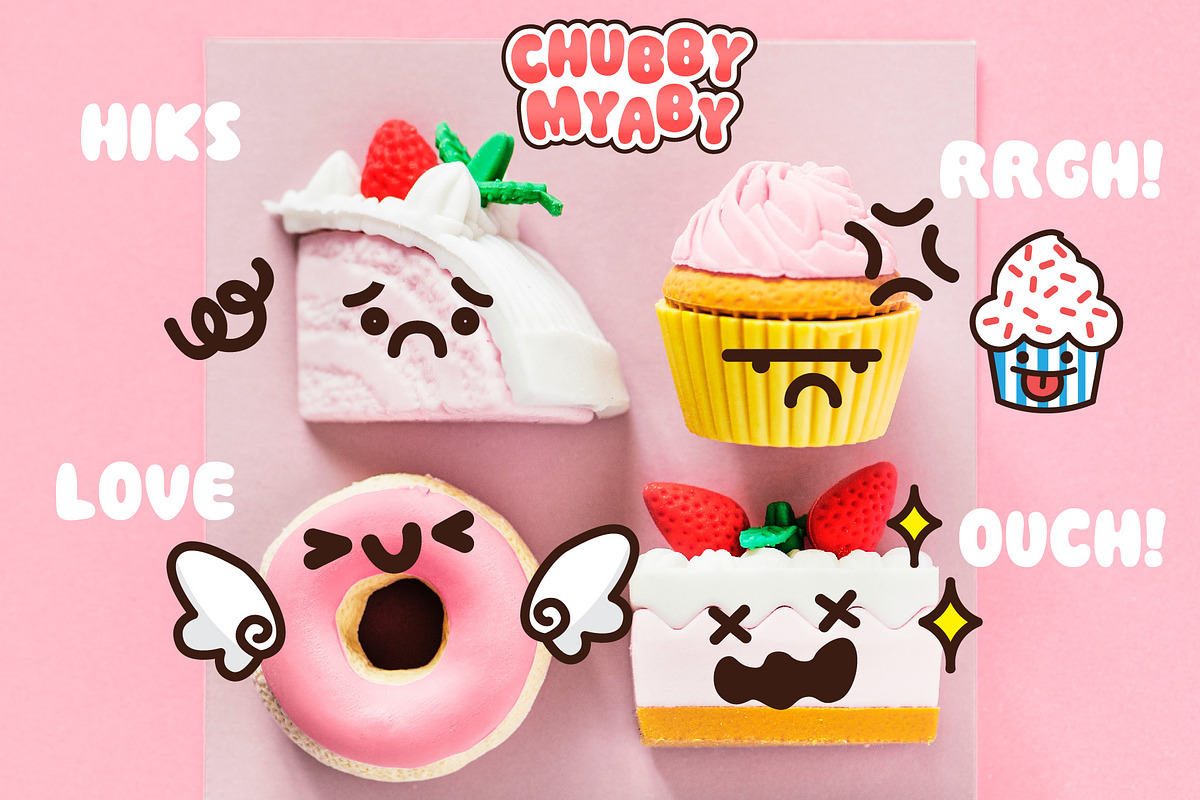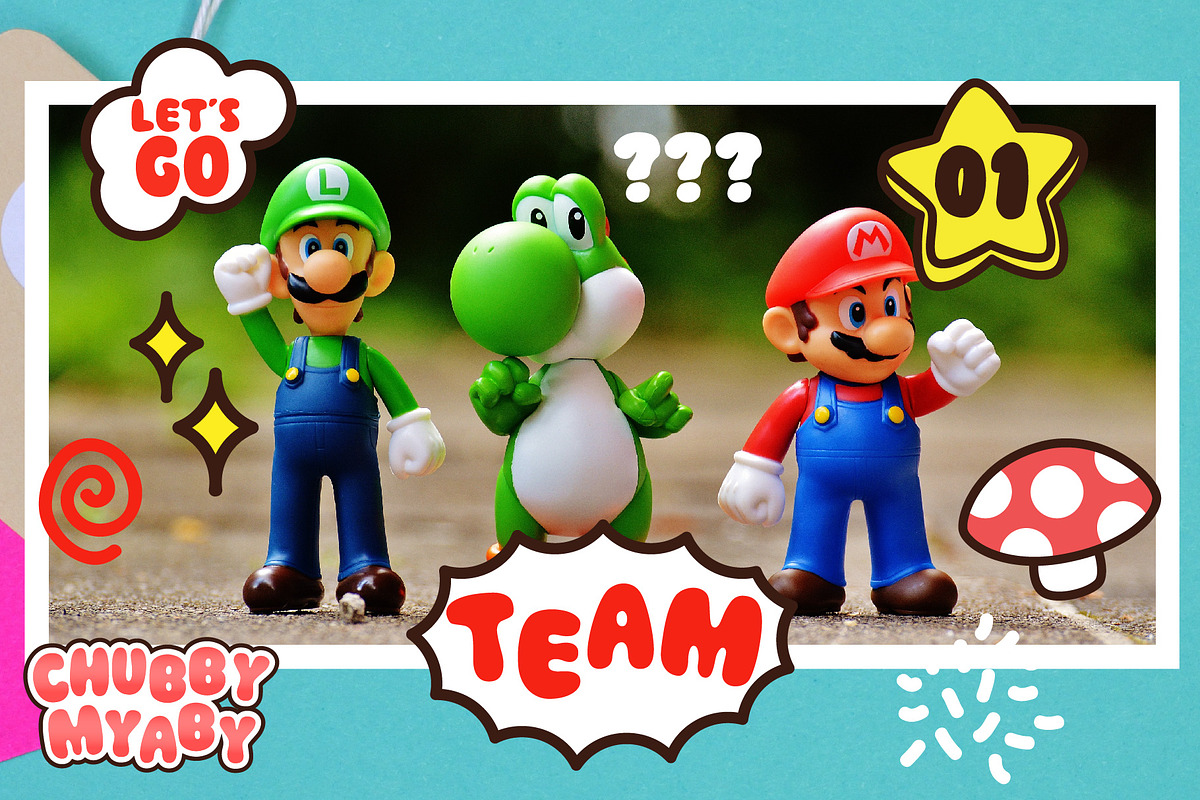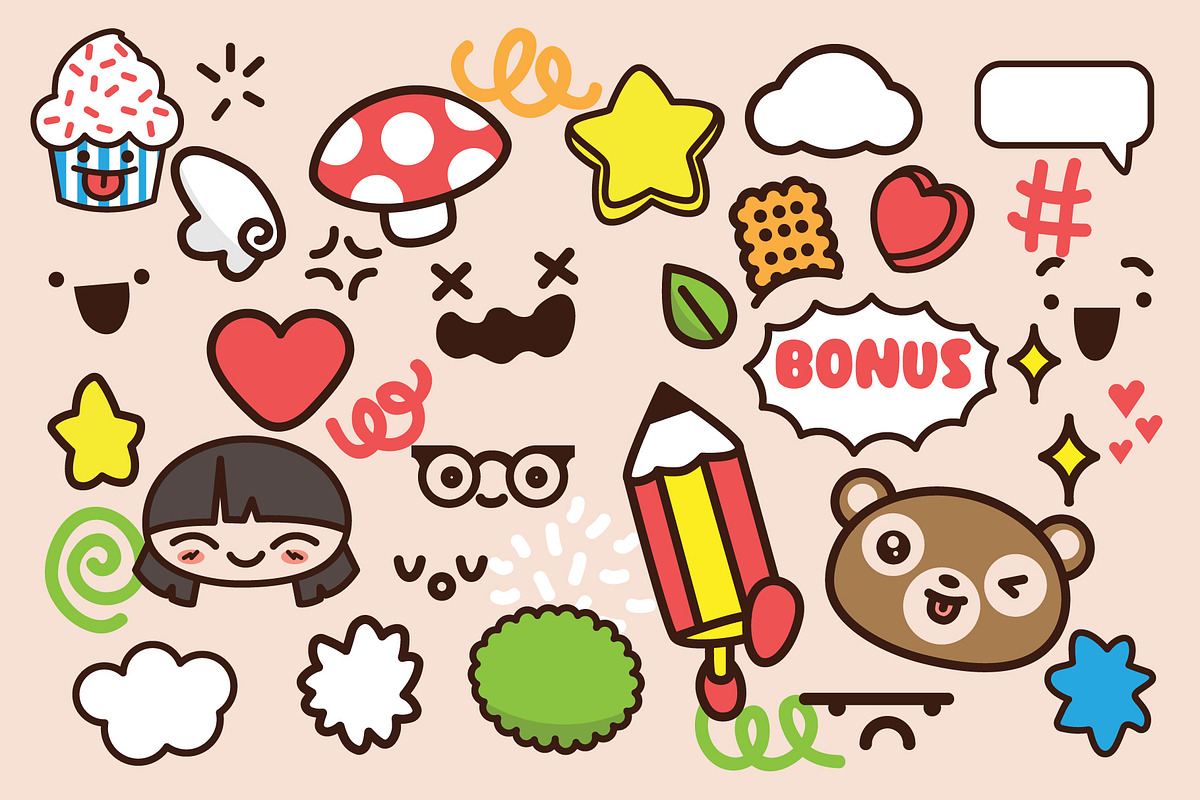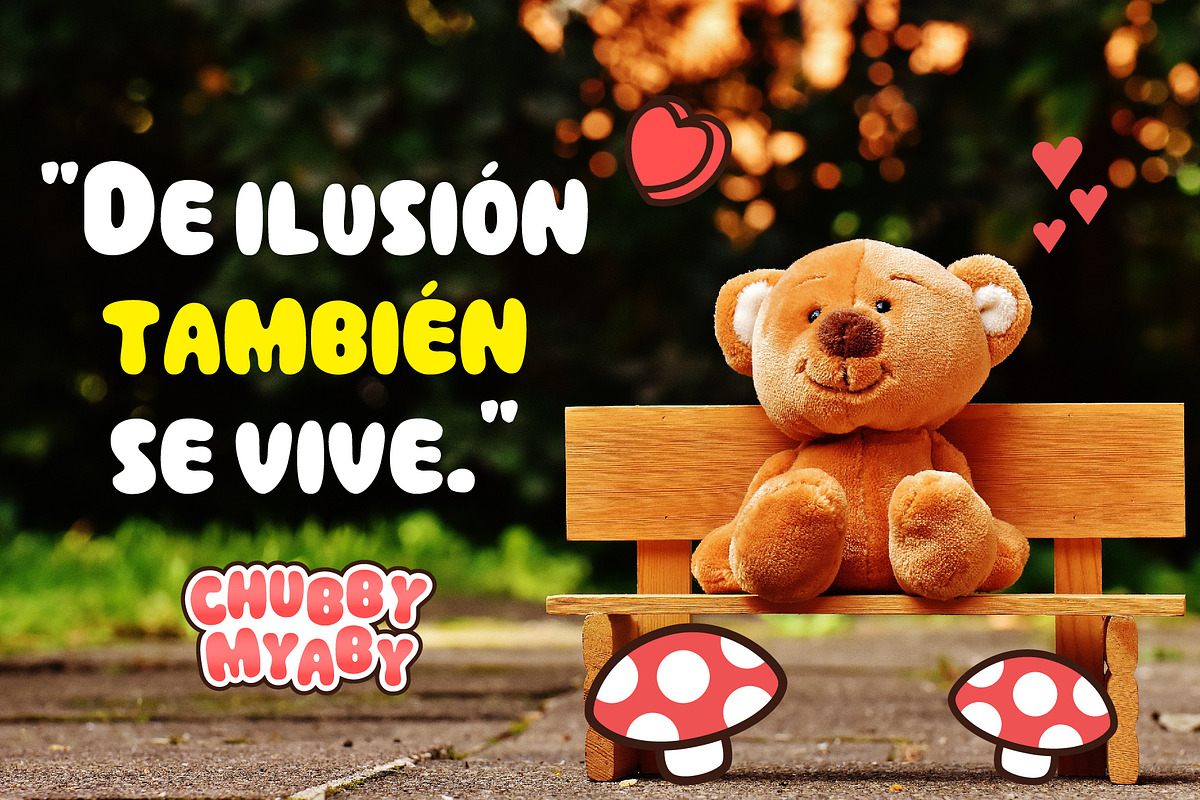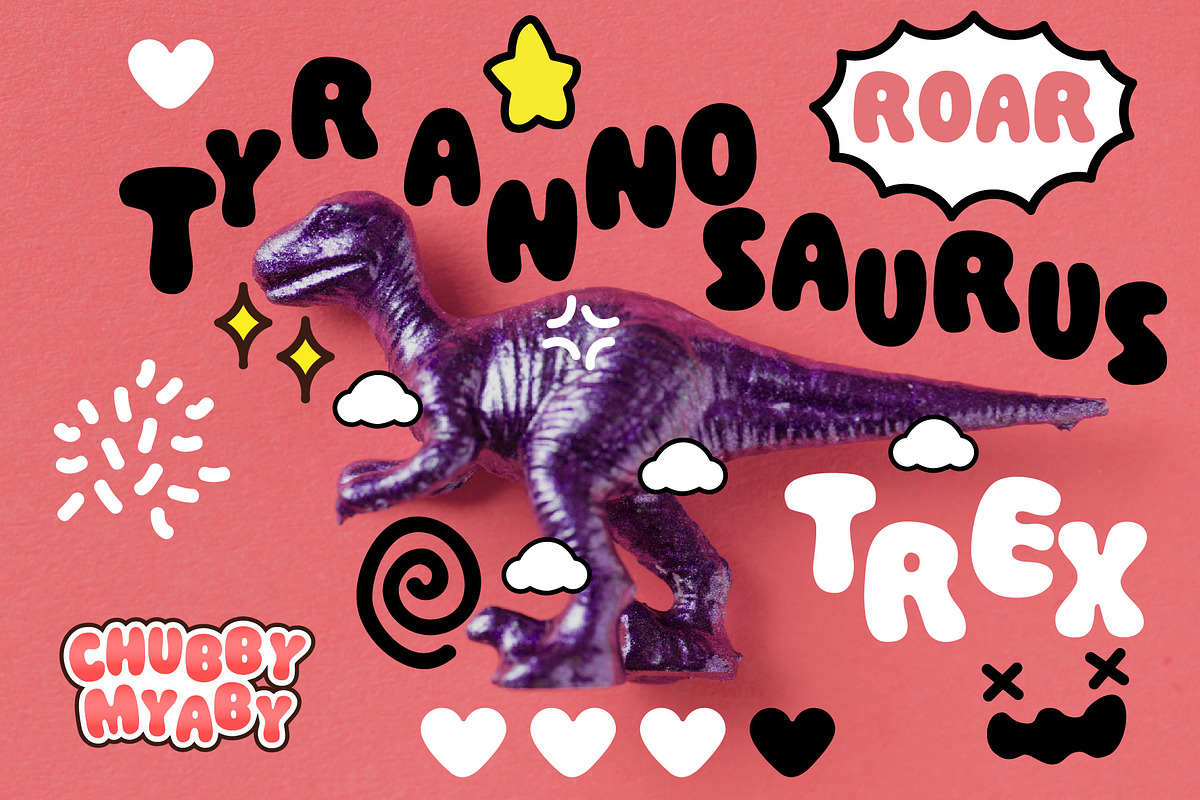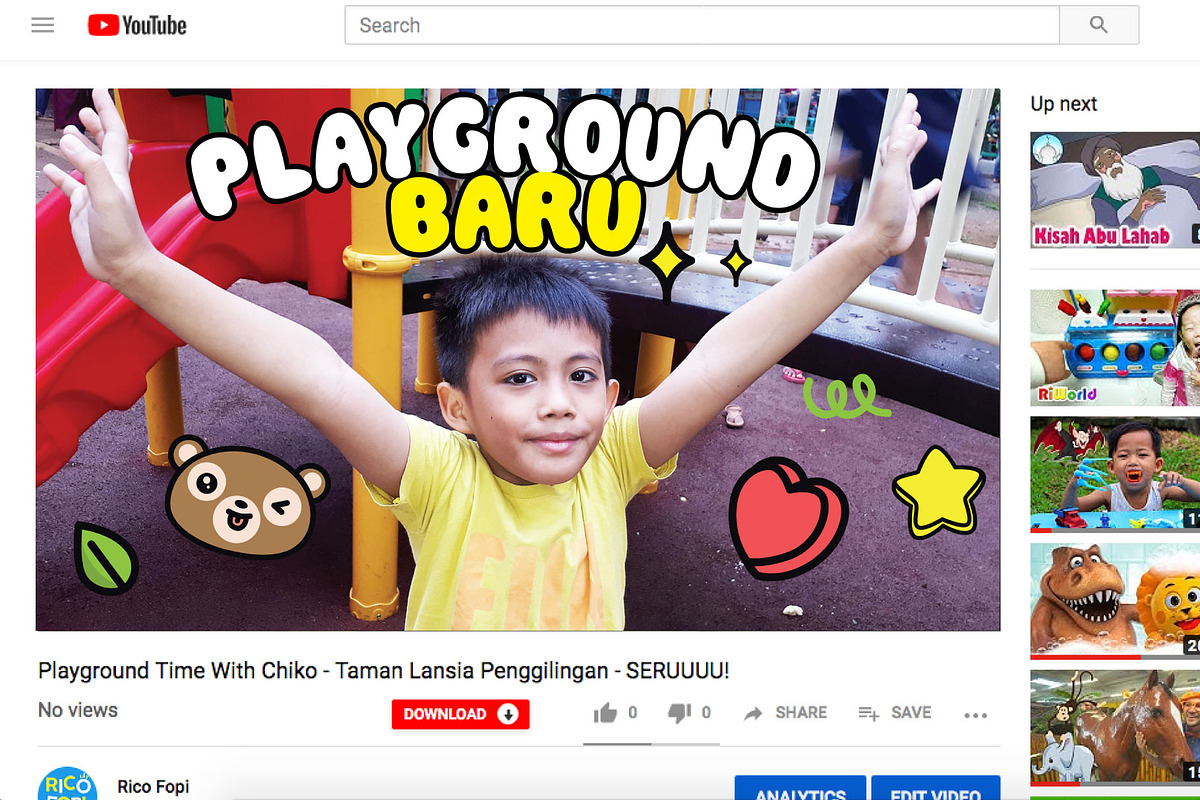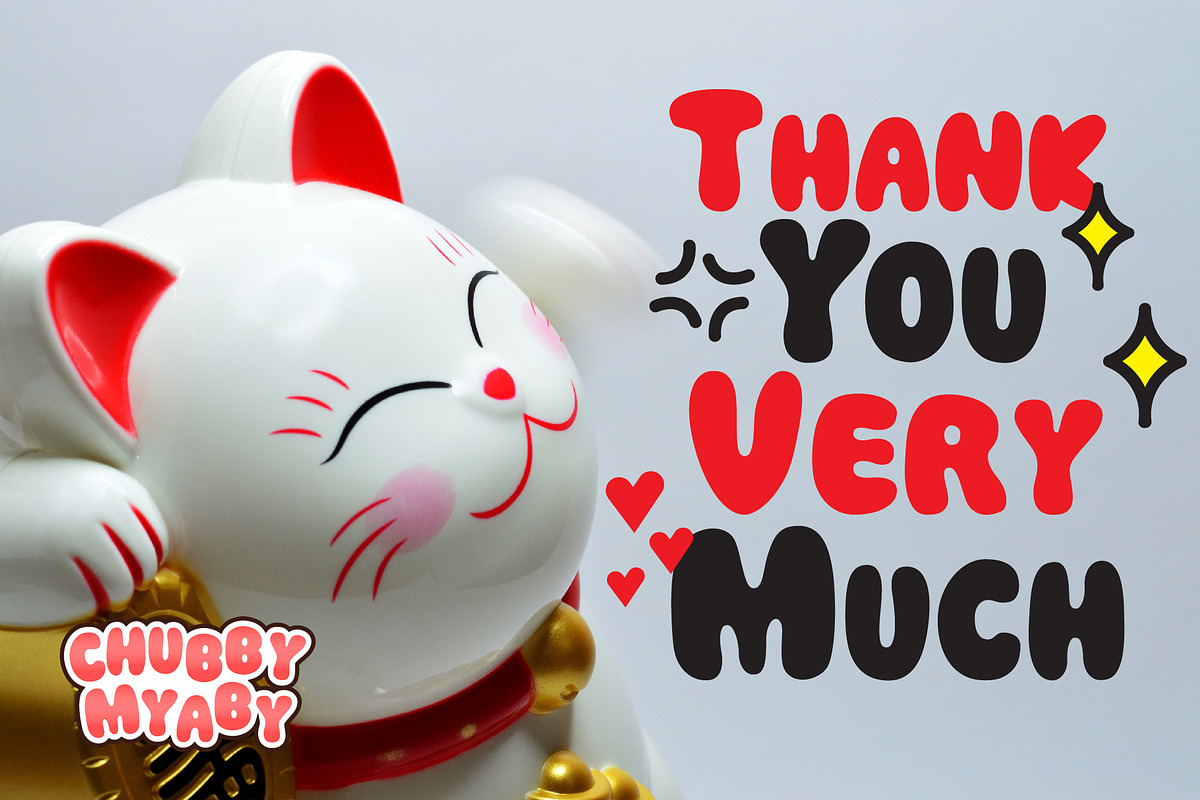
Chubby Myaby Font + Bonus
We all know that sometimes digital contents lack of emotions. Even though everyone loves to express freely, widely, HAPPILY, texts only (like what we can only do here) is not enough to show what we’re currently feeling or what we want others to feel! Don’t you think so?
That’s why we need stickers to cheer up the conversation, and that’s exactly why we created this CHUBBY MYABY Typeface. Perhaps you wanna put more kiddish side to your photography, or you want to create a stickers by combining cringeworthy cute characters, this will enable you to do that!
Bring more story to your creations, put lovely bearhere, or dizzy little girl there. We also have walking pencil, how fun is that? Haha!
If you like this chubby bold font, buy it now! It’s inspired by kids doodling and some social media’s stickers which will joyfully fit to your online sticker and all of your handcrafter projects presentations.